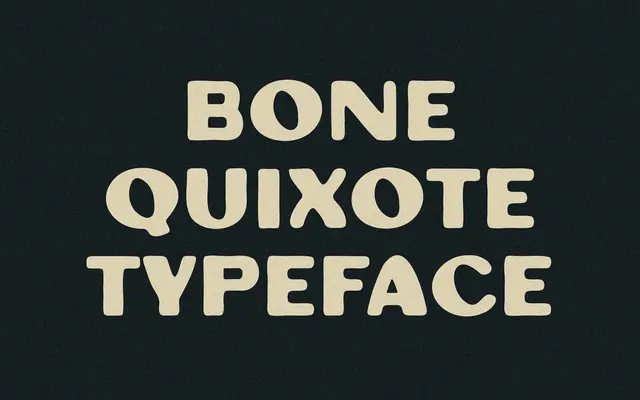
Bone Quixote
Bone Quixote specimen from Taylor Penton
A bold single-weight display face drawn from a mid-20th century label, with soft forms and a deliberately irregular edge.
Referencing a small piece of type found on a vintage label, the letterforms are heavy and rounded with a rough, organic quality that sets it apart from clean digital type. The R received particular attention from the designer, and the overall character suits packaging, logos and short headline work. Coverage is basic Latin with a limited set of accented characters across 151 glyphs.
A bold, single-weight display typeface with an irregular, hand-influenced edge drawn from a mid-20th century label reference; no italics or multiple weights place it firmly in the display category.